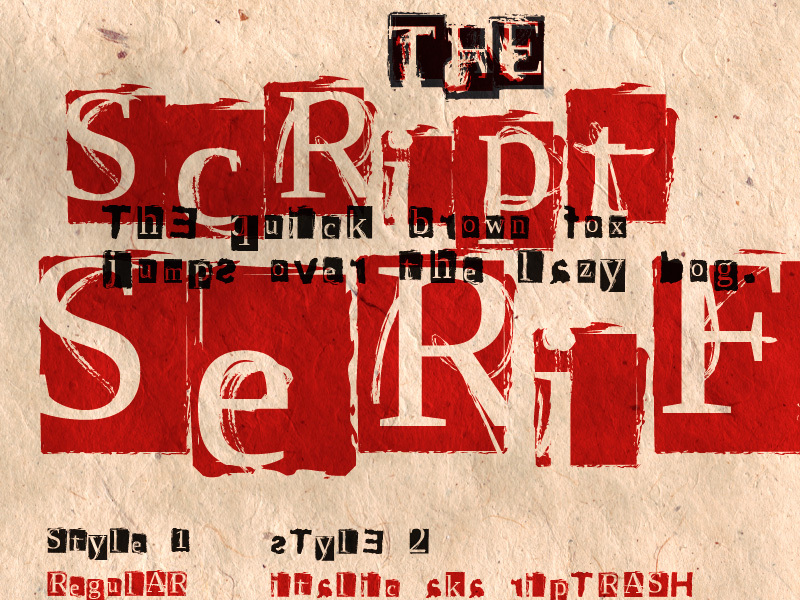
ScriptSERIF ripTRASH by Manuel Viergutz is a free eroded display font with a cut-and-paste edge. Ragged, ink-heavy shapes collide with crisp serif fragments, producing lettering that feels torn, overprinted, and deliberately mismatched.
Punk music and underground print culture are the clearest references, making it useful for gig posters, album packaging, and magazine covers. Its broken silhouettes can merge with photocopied portraits, ripped-paper collage, and distressed illustrations, turning a title into part of the artwork.